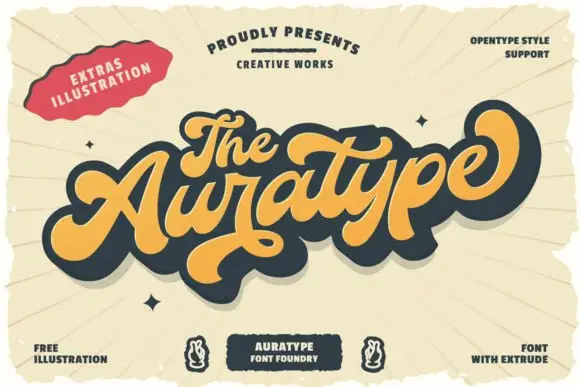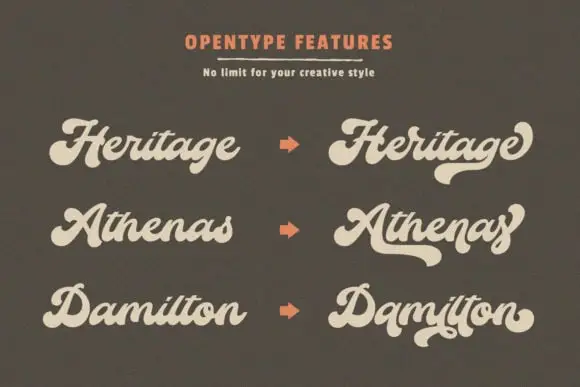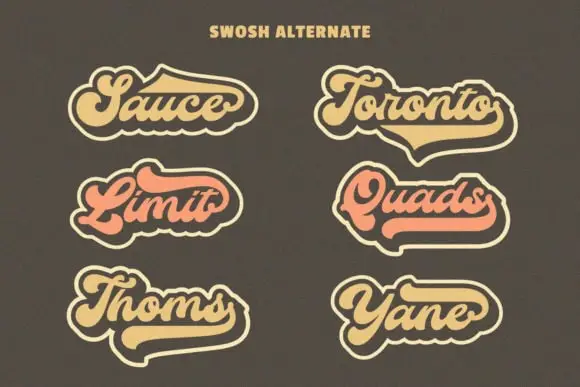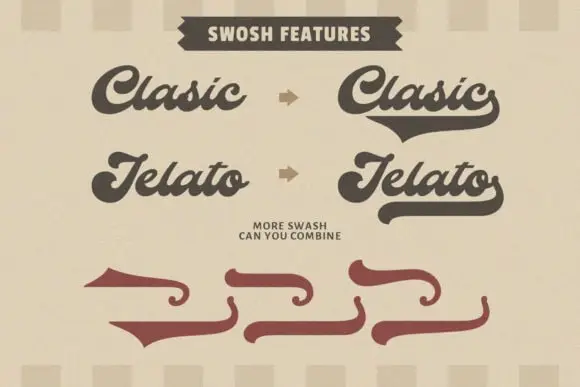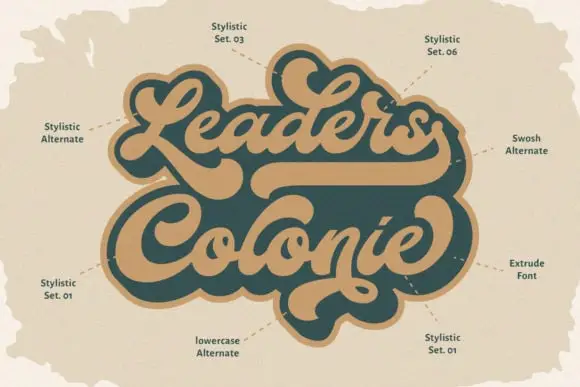
The Auratype Font
The Auratype Font is a modern typeface that combines elegance with versatility. With its unique design, this font is perfect for a variety of applications, from branding to digital media.
• Multiple weights for diverse usage
• Clear readability for both print and web
Ideal for logos, headlines, and user interfaces, this font can elevate your projects with its distinctive character.